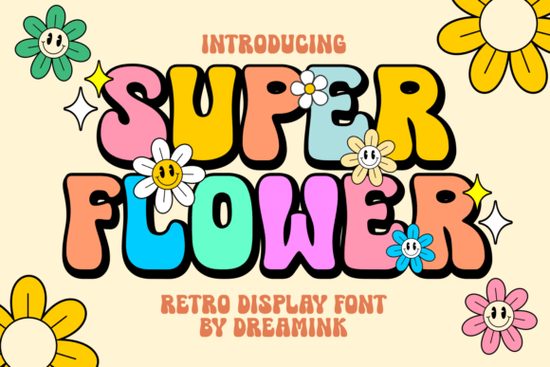
If you've been on the hunt for a retro display font that brings genuine vintage personality to your work, Super Flower is worth a closer look. This charming typeface from Creative Fabrica blends playful curves with bold, confident lines the kind of lettering that instantly feels like it belongs on a 1970s concert poster or a colorful shop sign. Whether you're designing for clients, selling products online, or just creating for fun, it fills a very specific niche that can be hard to find in modern font libraries.
What makes Super Flower different from other retro fonts?
Plenty of fonts claim a "vintage" or "groovy" vibe, but many of them end up looking generic. Super Flower stands out because of its whimsical letter shapes that balance boldness with a sense of fun. The curves have personality they're not just rounded for the sake of it. Each character carries a slightly playful distortion that gives headings and logos real visual interest.
Compared to something like a high-impact display option with explosive energy like Booom, Super Flower leans more toward charm than intensity. It's the difference between shouting at your audience and inviting them in with a smile. That warmth makes it especially useful for brands and projects that want to feel approachable and lighthearted.
What kinds of projects does it work best for?
Super Flower is a display font, which means it shines in larger sizes and short text not paragraphs of body copy. Here are some practical uses where it fits naturally:
- Posters and flyers especially for events, markets, or themed parties
- Logo design for brands with a fun, handmade, or retro identity
- Social media graphics Instagram posts, story headers, pin titles
- Print-on-demand products mugs, tote bags, t-shirt slogans
- Greeting cards and invitations birthday cards, save-the-dates, holiday designs
- Website headings and banners hero sections that need personality
If you run an Etsy shop or sell through Redbubble, a font like this can help your listings stand out in a crowded marketplace. The retro aesthetic has been trending in graphic design and typography for several years now, and it doesn't seem to be slowing down.
How does it compare to other Creative Fabrica display fonts?
Creative Fabrica has a large collection of display fonts, and the right choice depends on the mood you're going for. If you're working on holiday-themed designs, something like a festive display typeface built for seasonal projects might be more appropriate. On the other hand, if you need something edgy and modern, a strong contemporary option like Rushk could be a better match.
For projects that call for artistic and expressive lettering, the Black Artist font offers a completely different aesthetic more textured and hand-drawn. And if you're designing for kids' products or playful branding, Tiny Rex is a fun alternative that leans into a younger, more cartoonish style.
Super Flower sits somewhere in the middle of all these: retro but not dated, bold but not aggressive, fun but still readable. That versatility is what makes it a solid addition to any designer's font library.
Tips for getting the most out of this font
- Pair it with a clean sans-serif for body text. A retro display font like this needs breathing room, so let it do the heavy lifting in headings only.
- Use generous spacing. Playful letterforms can feel crowded if the tracking is too tight, especially on smaller screens.
- Try it in all caps. Many display fonts look stronger in uppercase, and Super Flower is no exception the bold lines and curves come through even more clearly.
- Experiment with color. Retro fonts often pop against warm tones like mustard, burnt orange, or teal. Don't be afraid to move away from basic black and white.
- Keep your message short. Display fonts work best with a few words at a time. Think slogans, headings, and taglines not paragraphs.